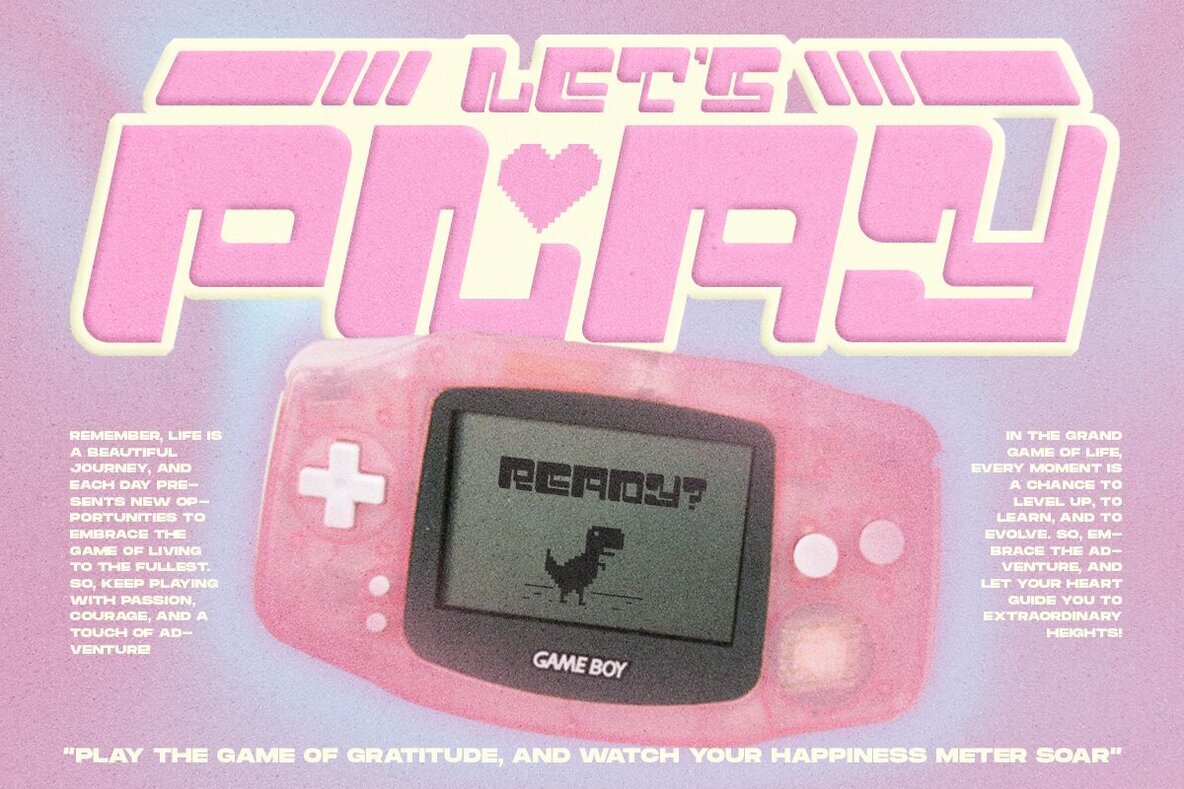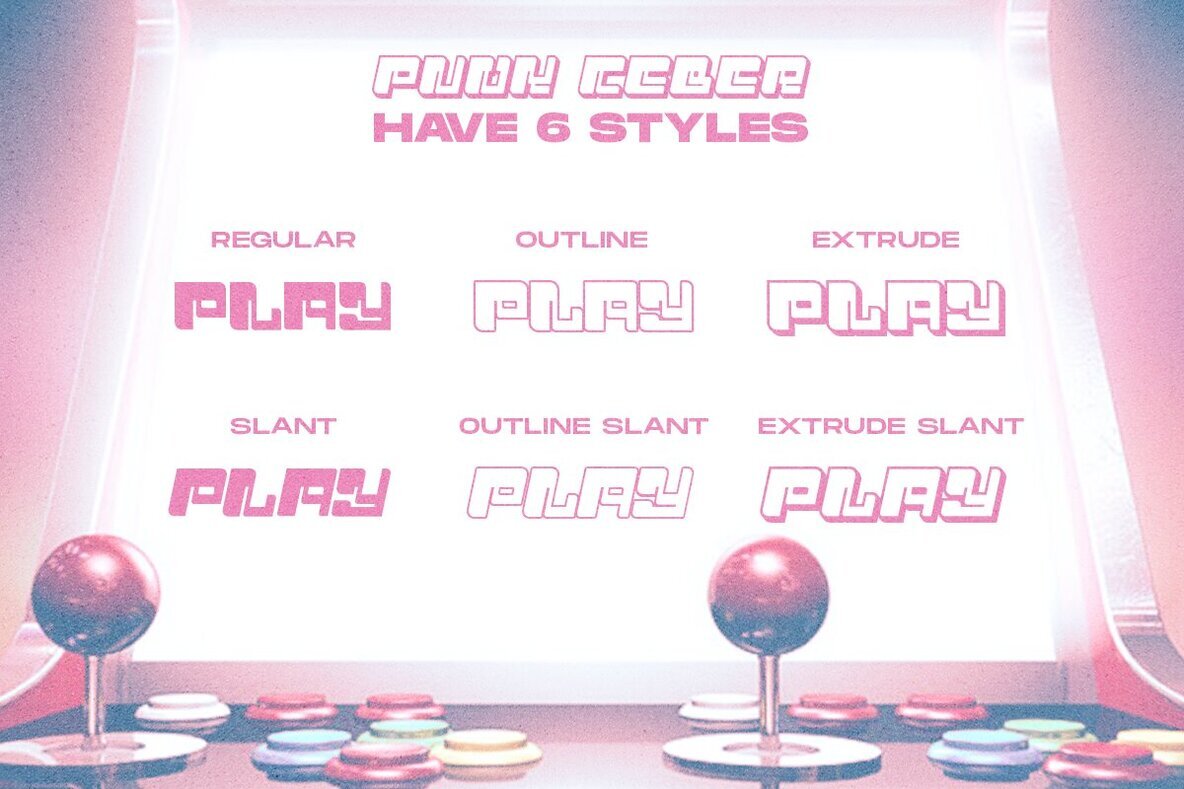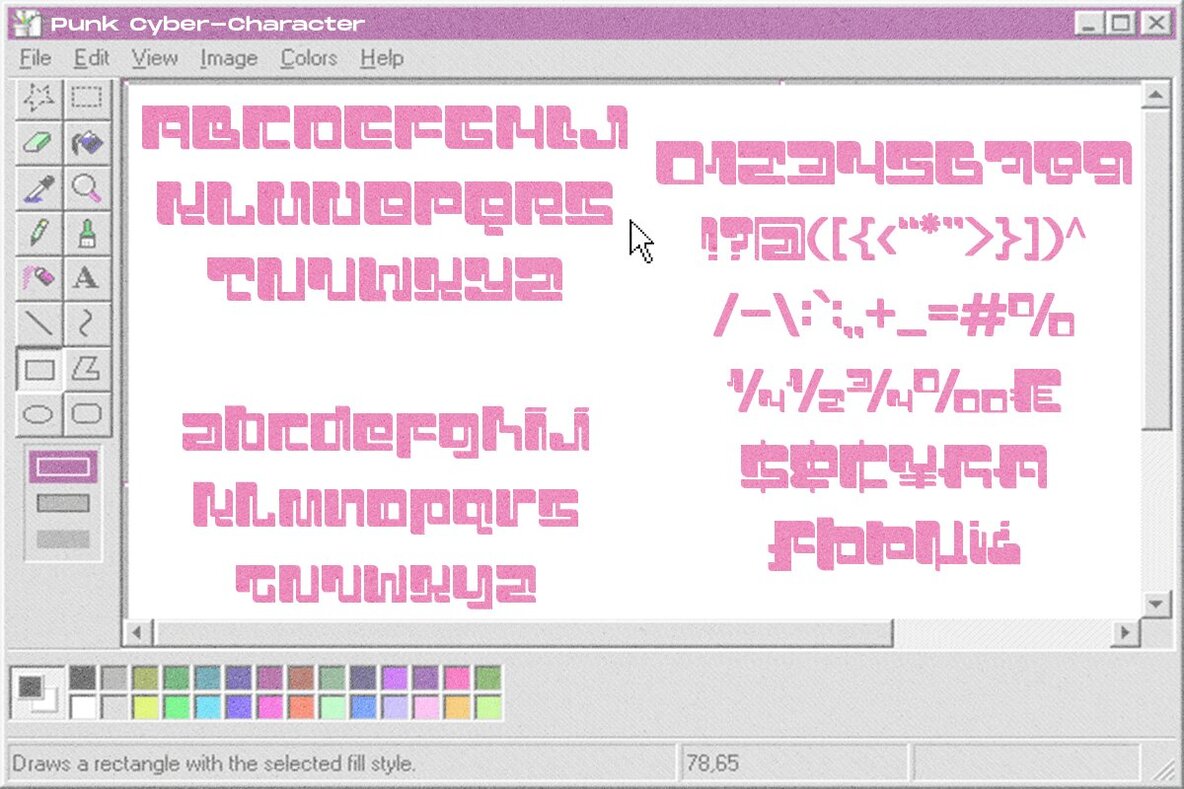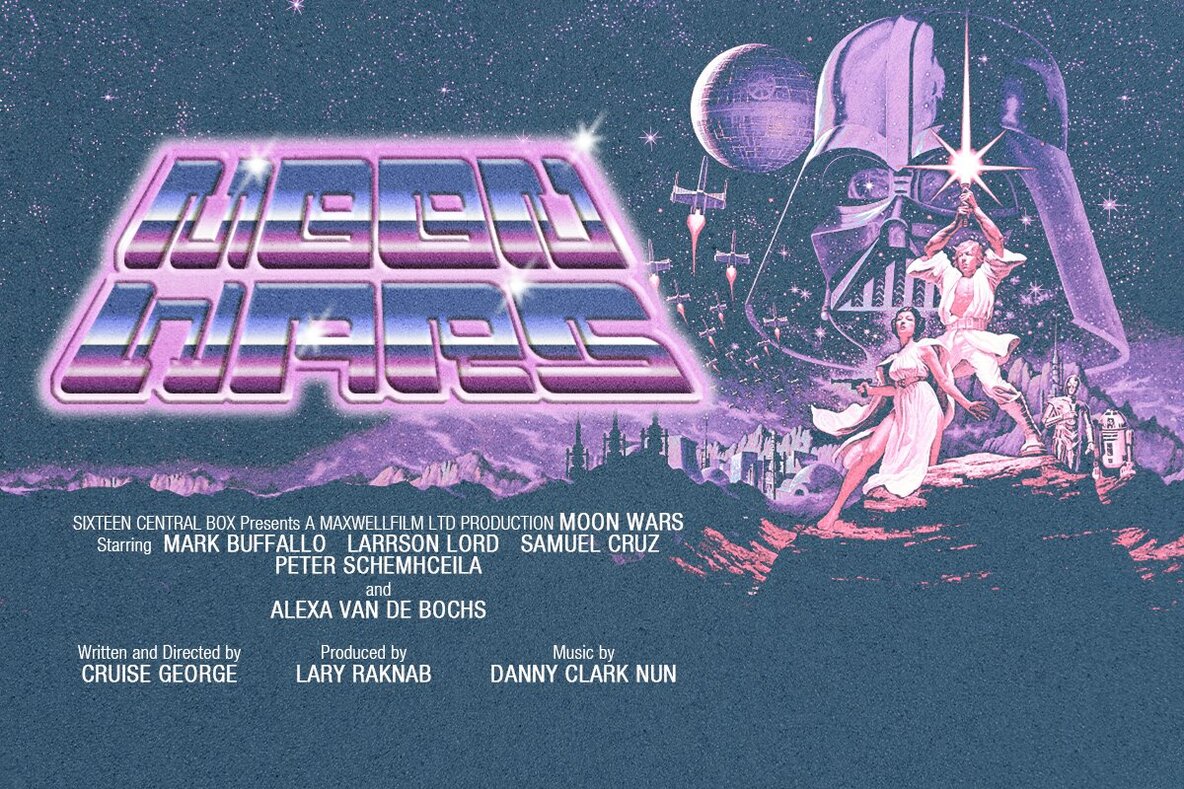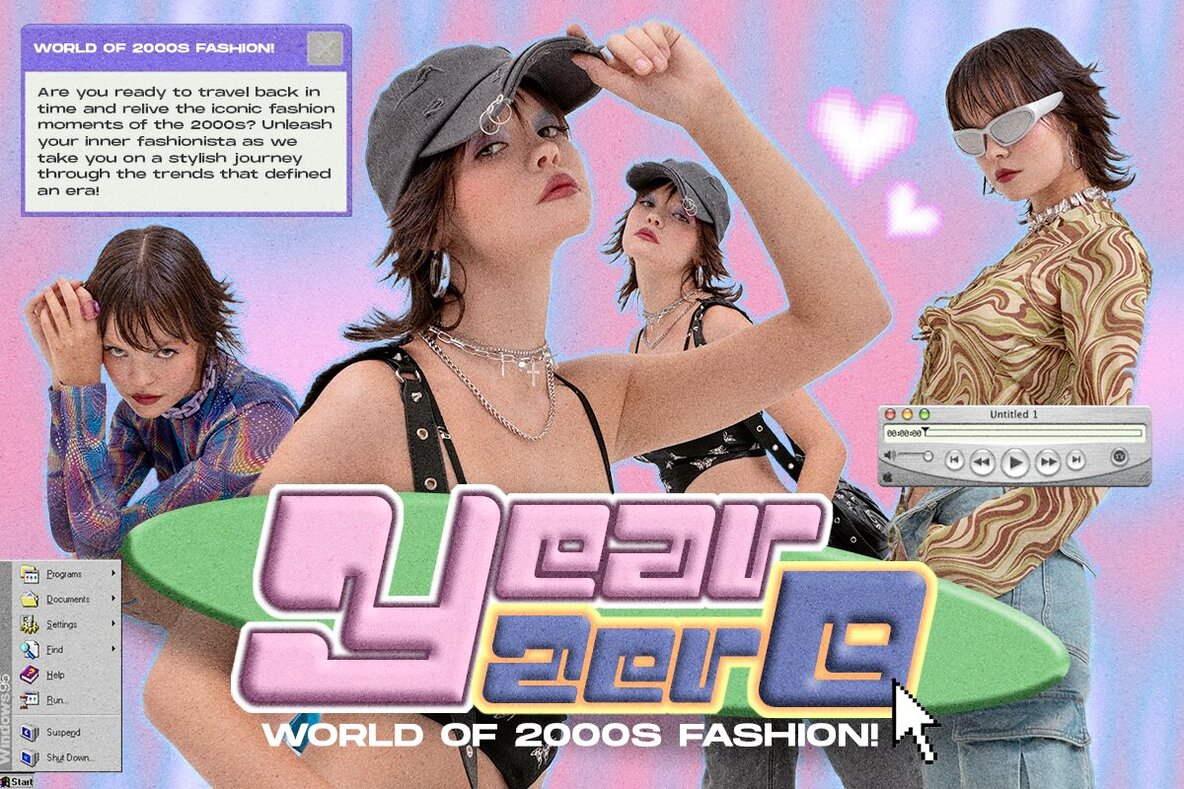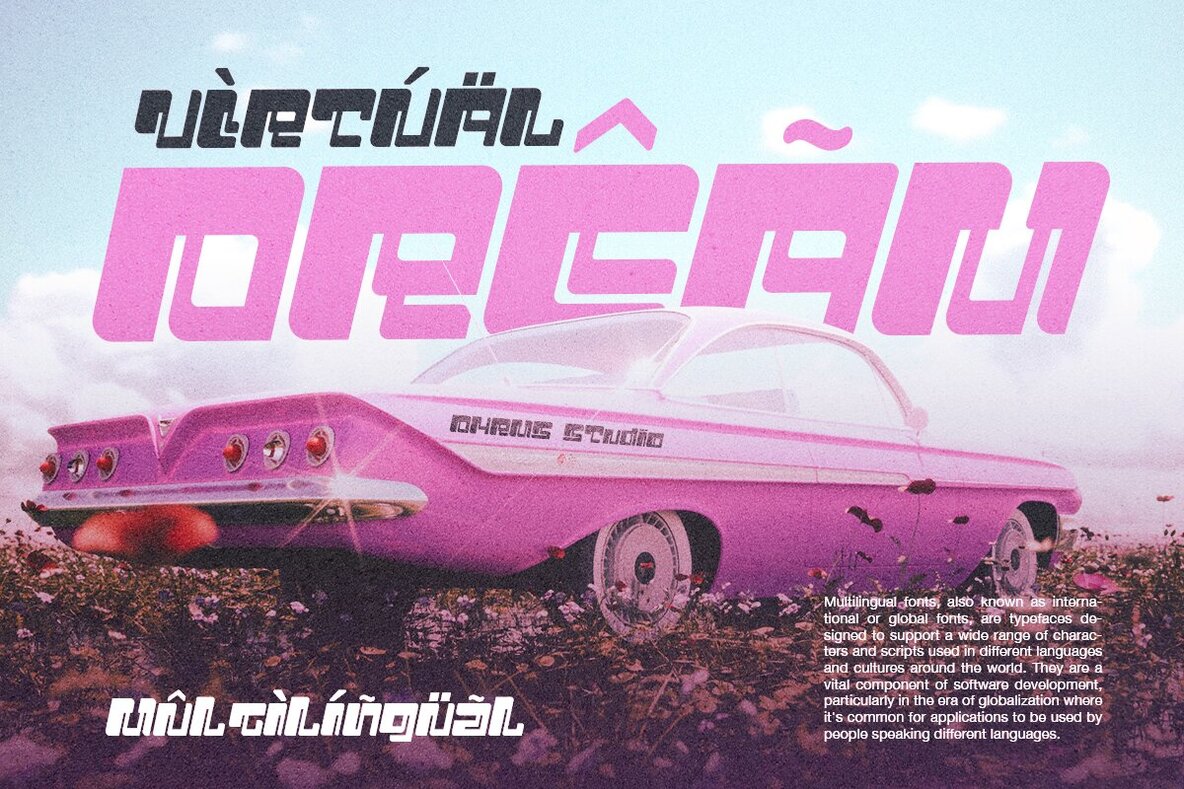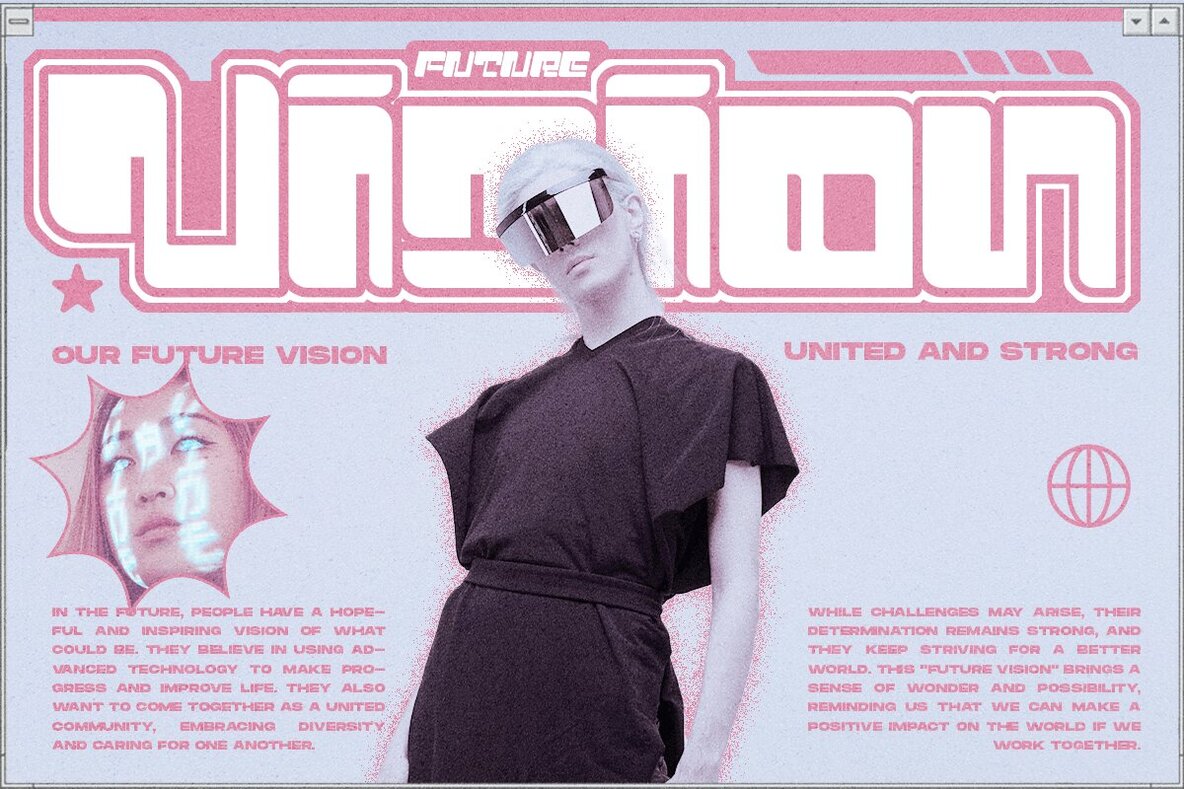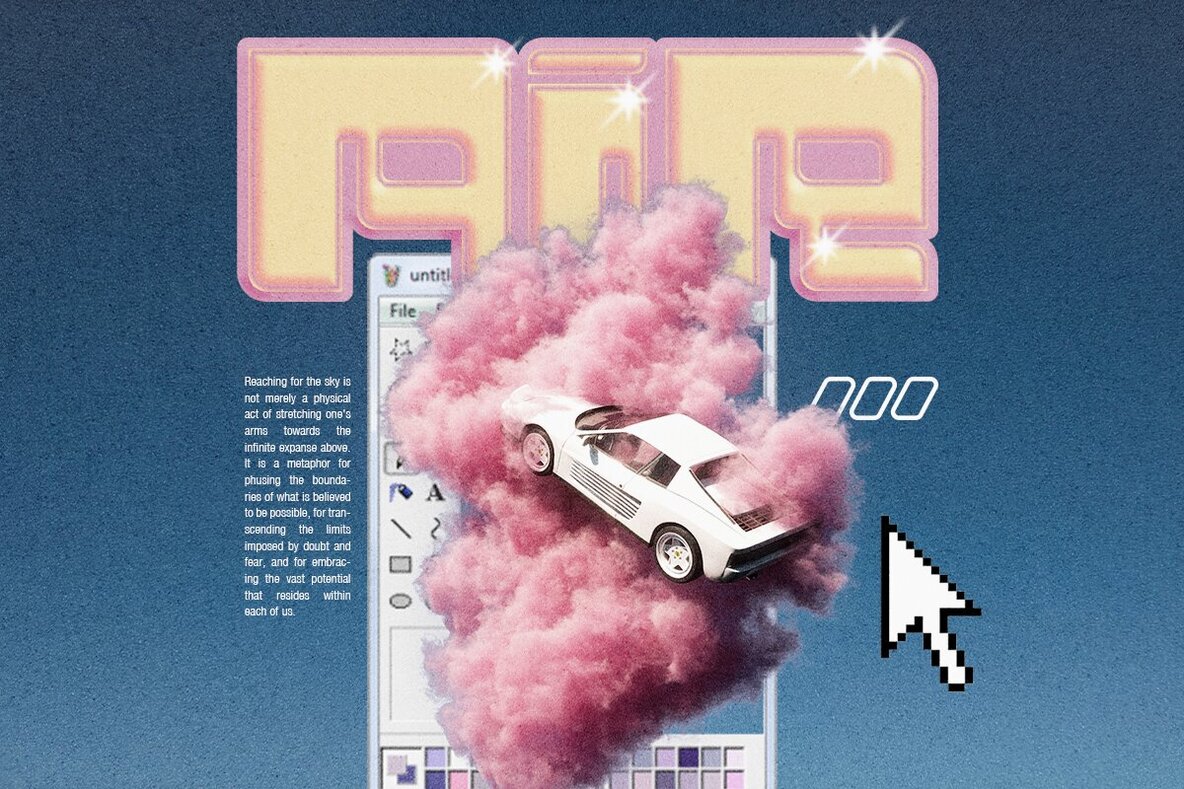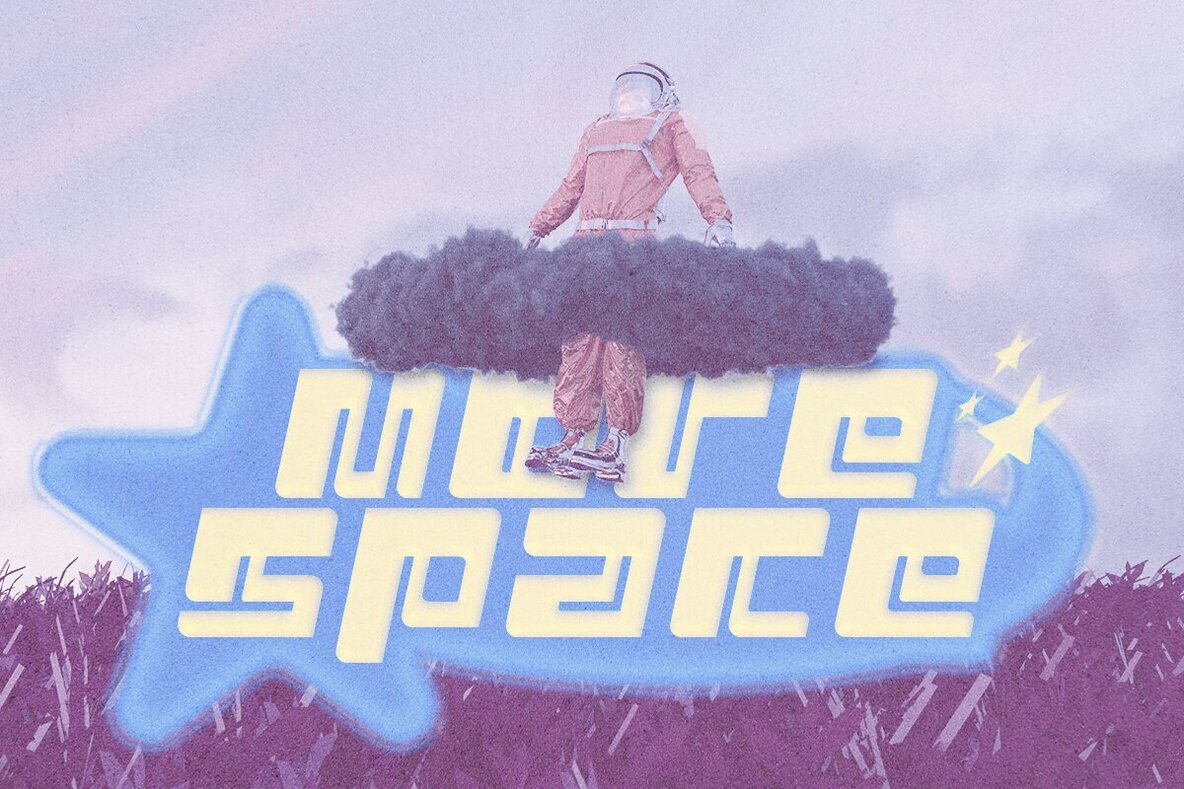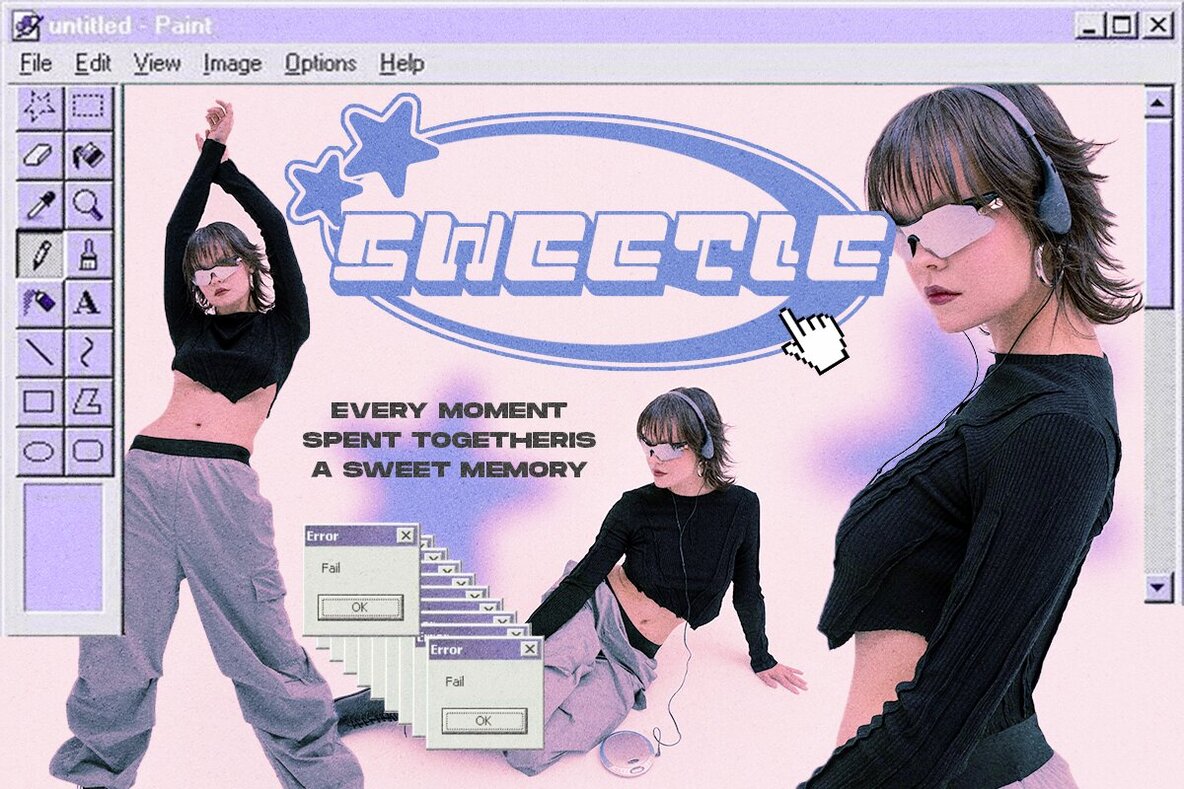
Punk Cyber Font
Get ready to dive into the retro vibes of the early 2000s with PUNK CYBER!. This font brings back the bold, colorful, and experimental visuals that defined the y2k era. With 6 captivating styles - Regular, Slant, Outline, Extrude, Outline Slant, and Extrude Slant - this font offers a variety of options to play with in your designs. Whether you're working on branding, prints, posters, magazines, headlines, social media, music, or Youtube projects, PUNK CYBER is your ultimate go-to. Let its vibrant and edgy aesthetics elevate your creations and make a statement that stands out from the crowd. Embrace the nostalgia and bring the spirit of the early 2000s into your designs with PUNK CYBER Font! Features: